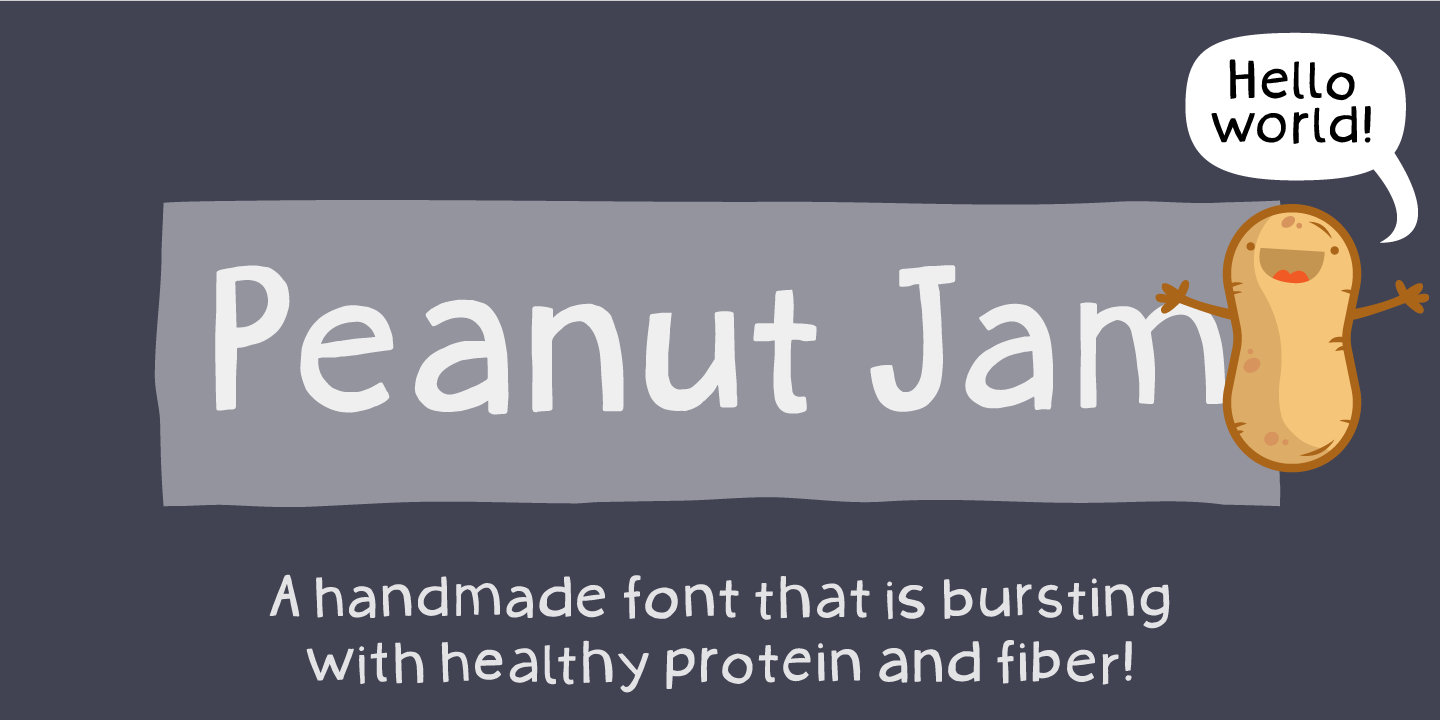
The Peanut Jam Font is a wonderfully playful and often whimsical display typeface, characterized by its bouncy, energetic forms and a sweet, inviting charm reminiscent of homemade treats and joyful childhood memories. Imagine its delightful characters gracing the labels of artisanal food products, adding a warm and personal touch to boutique cafe branding, or creating inviting titles for children's storybooks and creative craft projects. Its soft, organic curves and charmingly irregular appearance also make it an excellent choice for unique greeting cards, joyful social media graphics, fun party invitations, and any design where a tempting, lighthearted, and mouth-watering feel is desired. Whether you're aiming for a fun, appetizing look or a distinctly artistic touch with a delicious twist, Peanut Jam Font delivers with its undeniable charm, ensuring your visuals are both inviting and truly memorable.
What makes Peanut Jam Font so exciting is its ability to infuse designs with immediate personality and a sense of delightful indulgence and nostalgia. In a visual landscape where evoking appetite and joy is key, this font offers a refreshing dive into playful typography. It conjures images of sweet delights, cozy moments, and irresistible treats. It’s more than just a typeface; it’s a design element that can instantly set a warm, inviting, and appetizing tone for a project, making content feel more relatable and emotionally resonant. Designers will find it an invaluable asset for creating visuals that truly connect with an audience seeking comfort, happiness, and a sprinkle of sugary charm.
The Peanut Jam Font family is typically structured to offer a range of styles that enhance its whimsical and delectable appeal. Beyond the primary Peanut Jam Regular typeface (which might feature a charming, "jam-like" or "spread" quality), you might find companion styles such as a slightly bolder Peanut Jam Bold for stronger emphasis, or perhaps Peanut Jam Outline or Peanut Jam Textured versions that add different visual textures and dimensions, enhancing its luscious effect. Given its decorative nature, the family may also include unique ligatures or playful dingbats that perfectly complement its overall character, allowing for even greater customization and delightful sweetness. These diverse family members provide designers with the flexibility to craft engaging typographic compositions, ensuring visual consistency and maximum creative expression from prominent titles to smaller decorative elements, all while maintaining the font’s inherent charm.